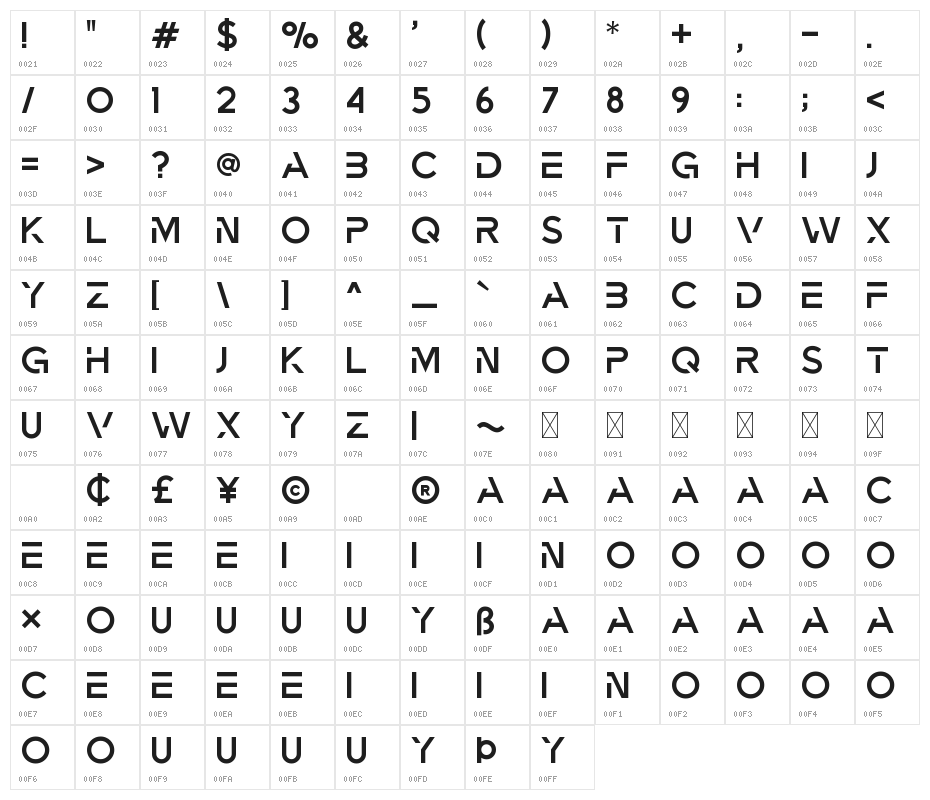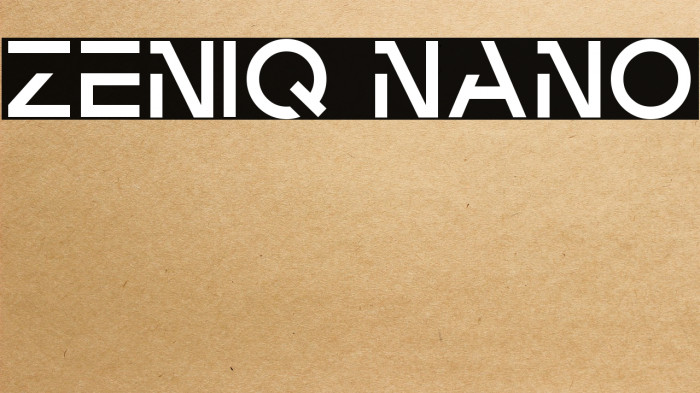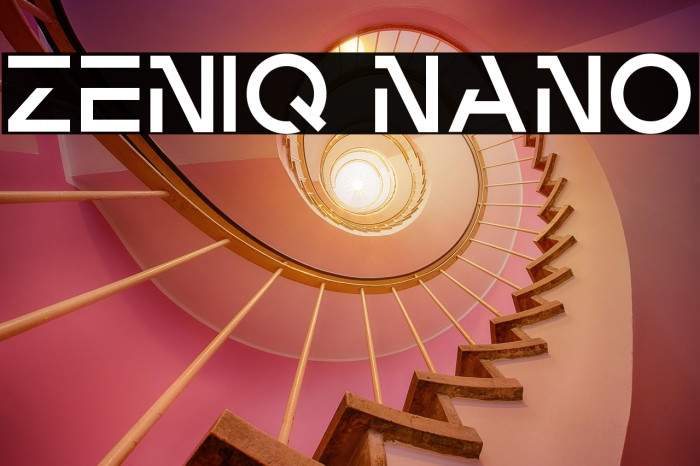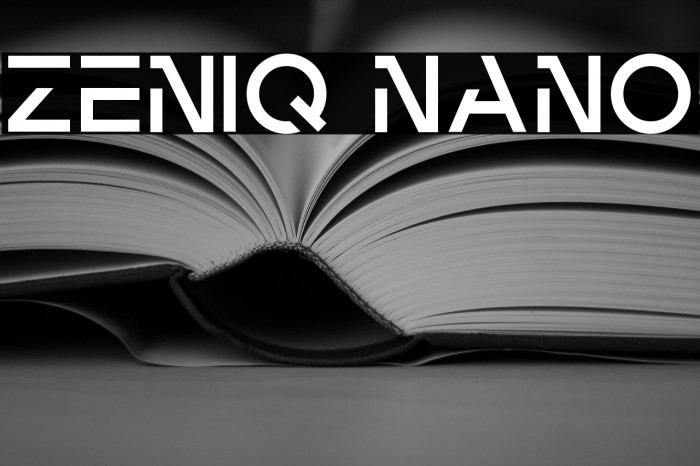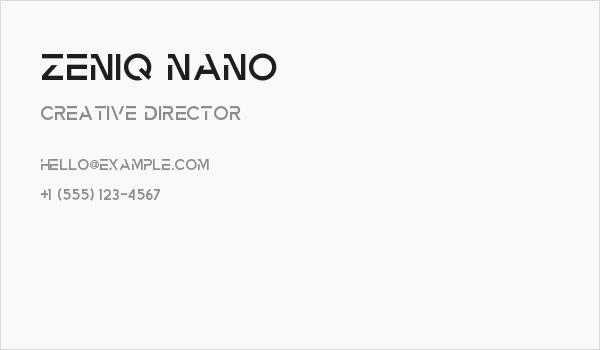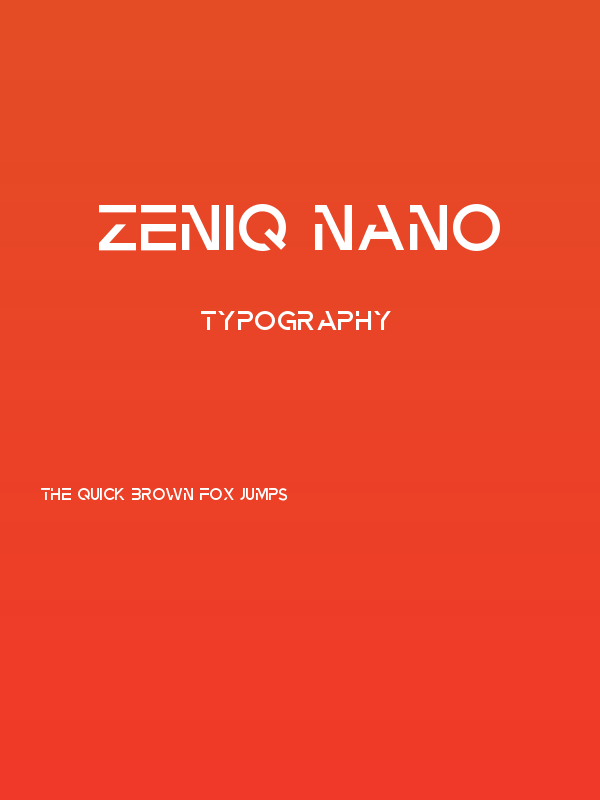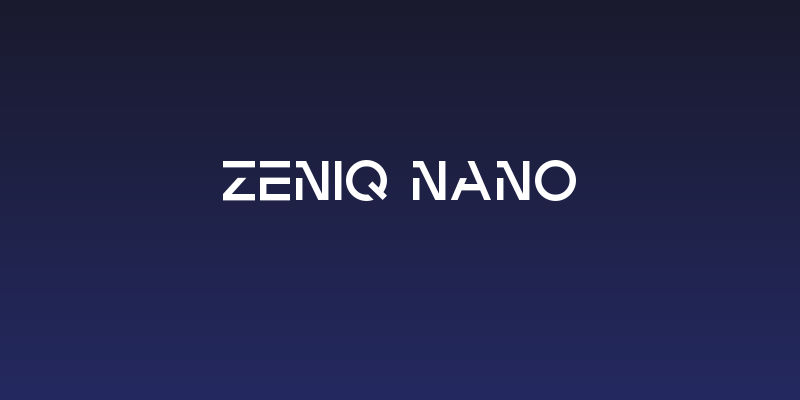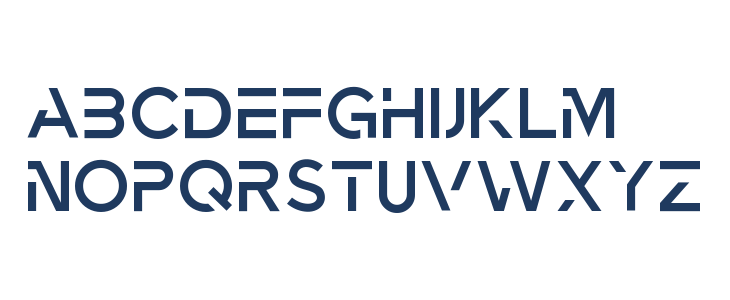
Zeniq Nano Font
Zeniq Nano Description
This font features a modern, geometric design with clean lines and a bold presence. The uppercase letters are uniform in height, with distinct angular cuts that give a futuristic feel. The lowercase letters maintain the same geometric style, ensuring consistency throughout. Numbers are bold and easily readable, with a similar angular design. Special characters are crafted to match the overall aesthetic, providing a cohesive look. The font's structure is ideal for creating a strong visual impact, making it suitable for various design applications.